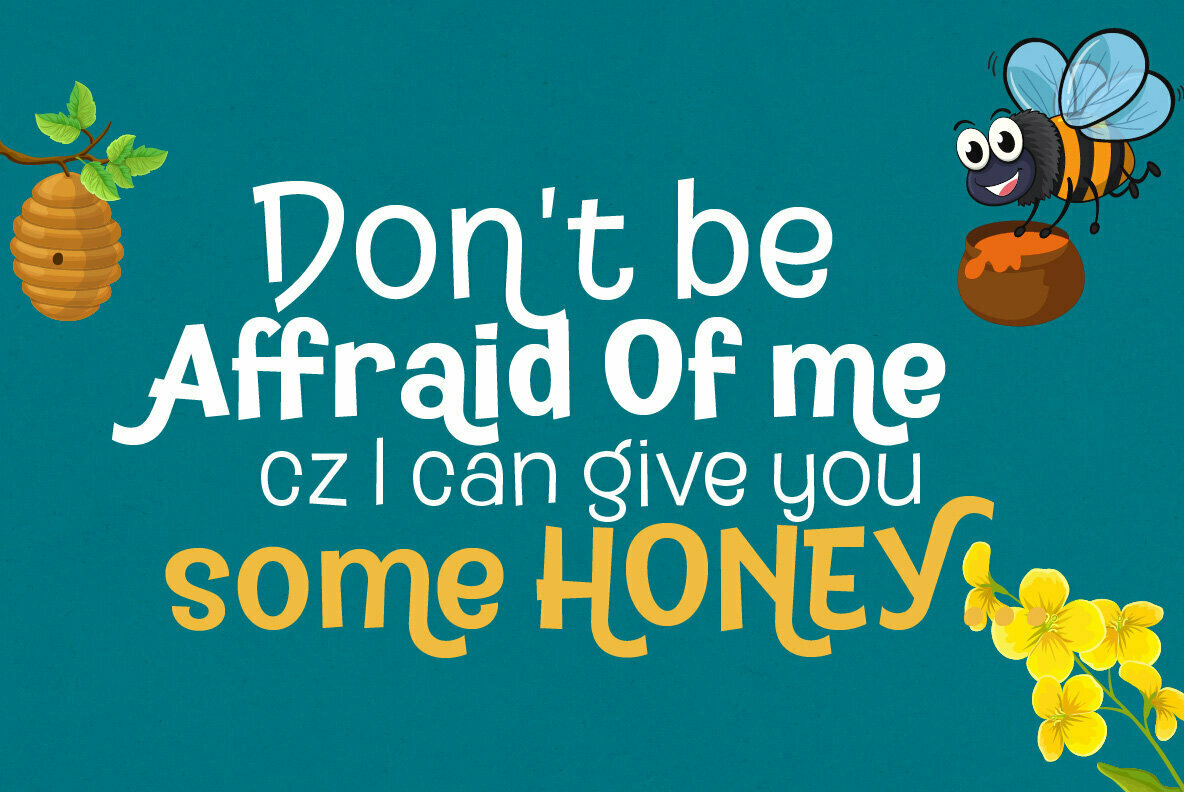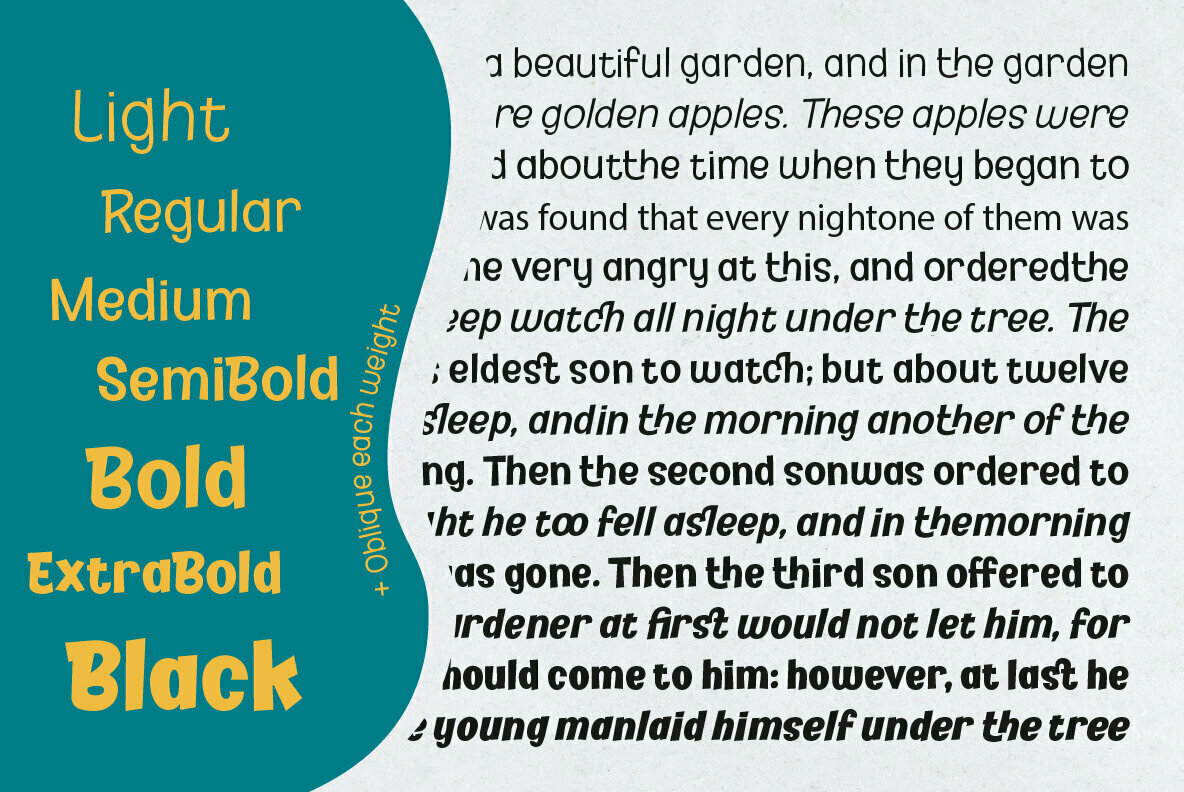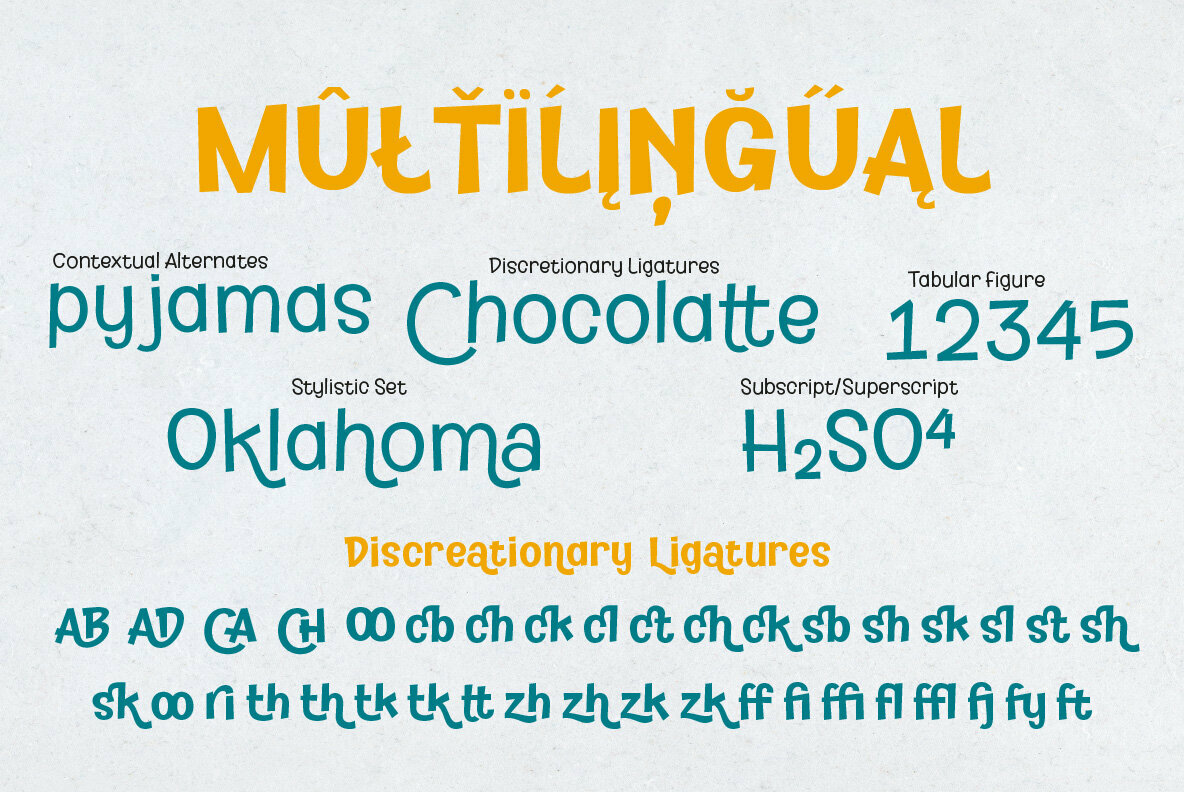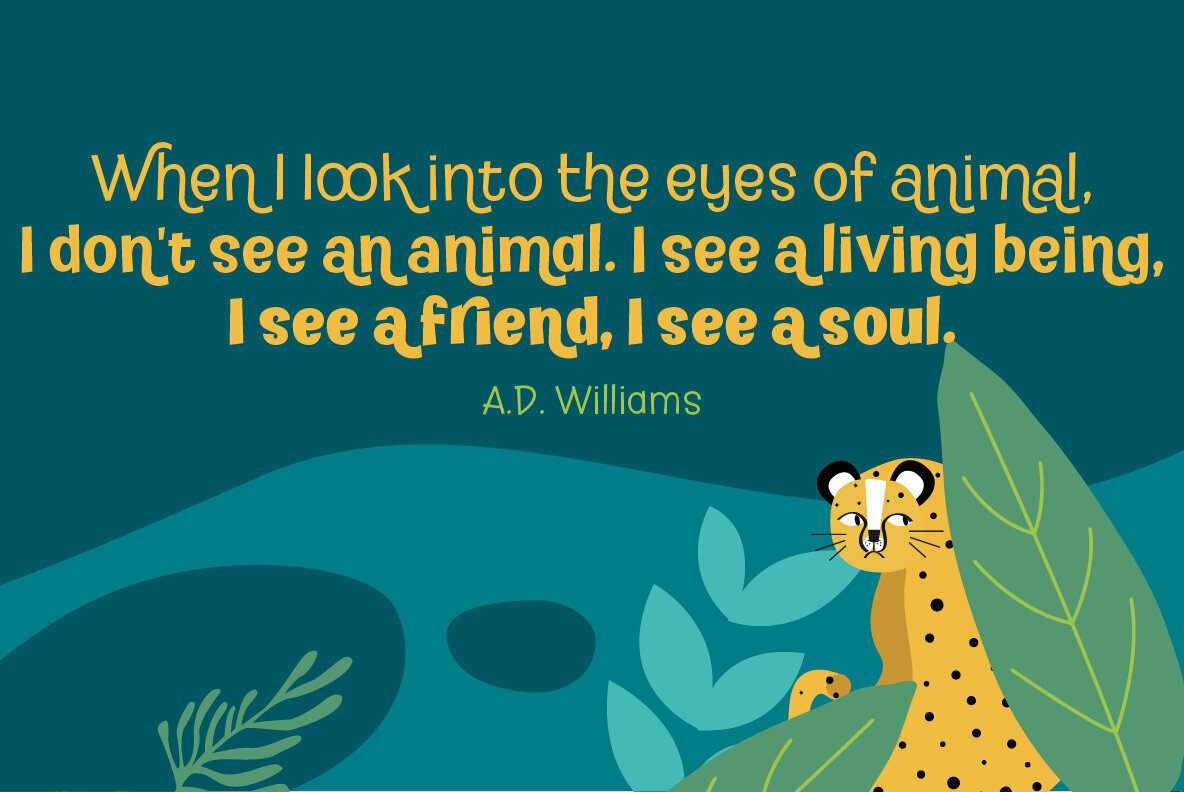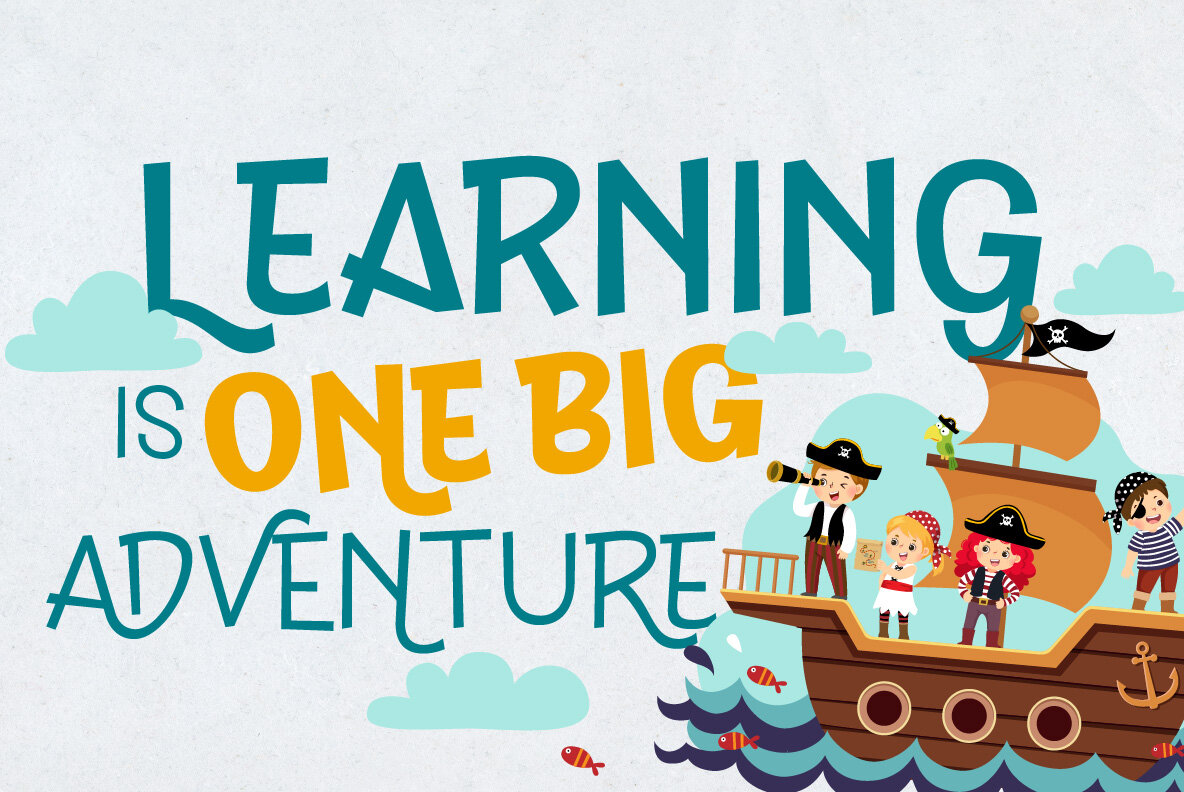
Kidzhood Font
Kidzhood represent the characters as funny and flexible, just like childish characters can be. Kidzhood equipped with cute letter form and some attractive ligatures, giving it a playful feeling.